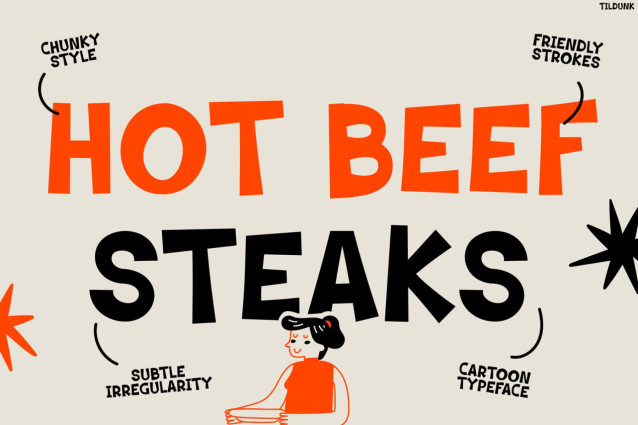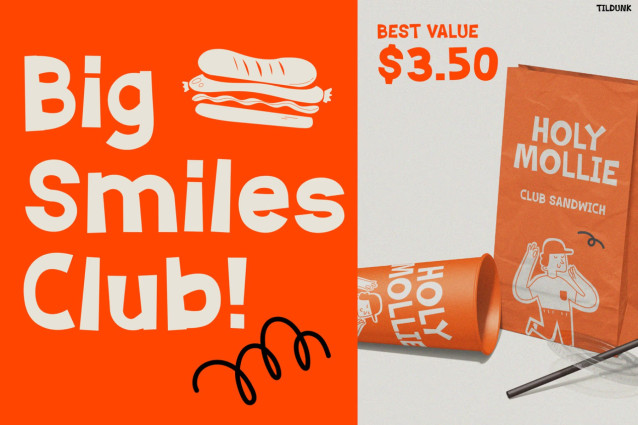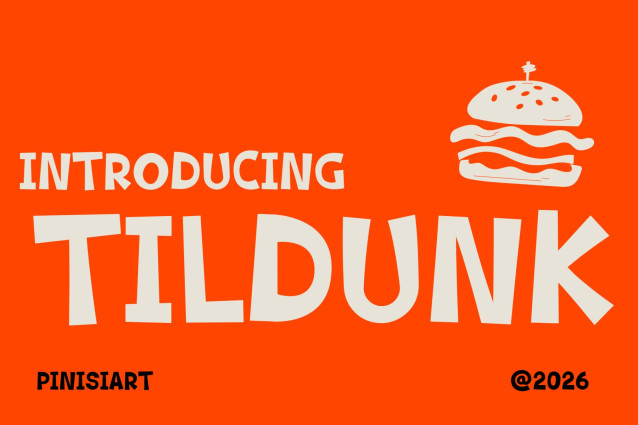
Tildunk – Happy Kids Display Font
Kids Font Tildunk is a joyful display font designed to fill every project with smiles, positive energy, and playful personality. Not only does it feature chunky handwritten letterforms, but it also blends rounded shapes with quirky imperfections that create a warm and approachable look. Moreover, its bold style instantly grabs attention without sacrificing readability. In addition, every character feels lively and expressive, making headlines look cheerful and memorable. Furthermore, the handcrafted appearance adds a natural charm that feels authentic and inviting.
As a result, Tildunk turns simple words into eye-catching visuals full of happiness. Meanwhile, its versatile design fits both print and digital media with ease. Therefore, it is an excellent choice for brands that want to communicate fun, creativity, and friendliness.